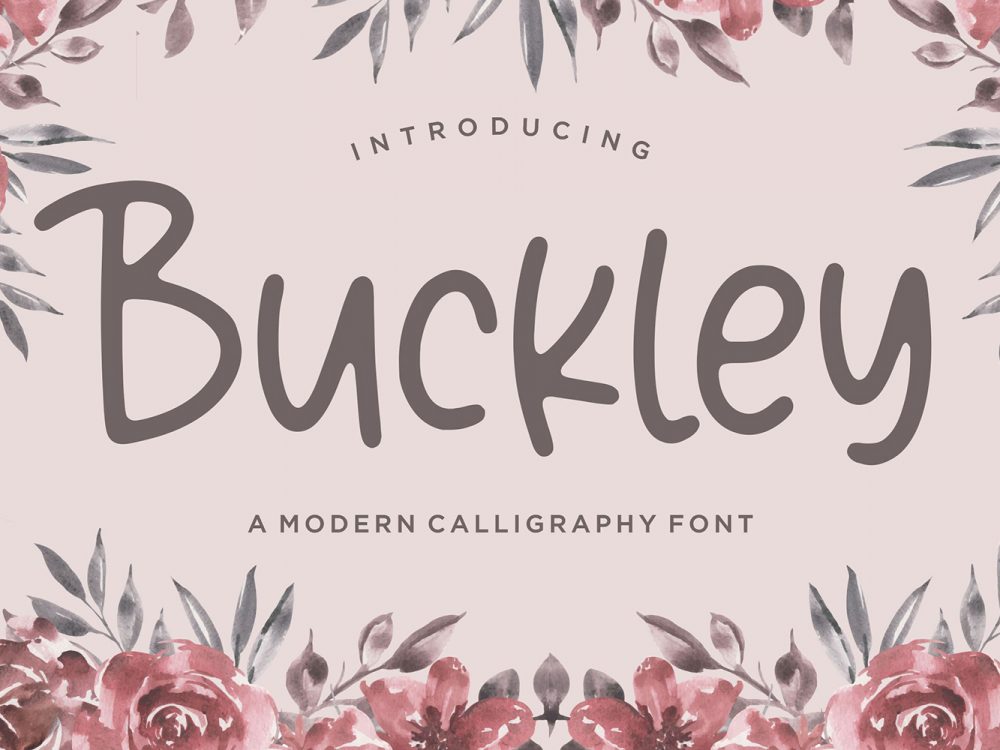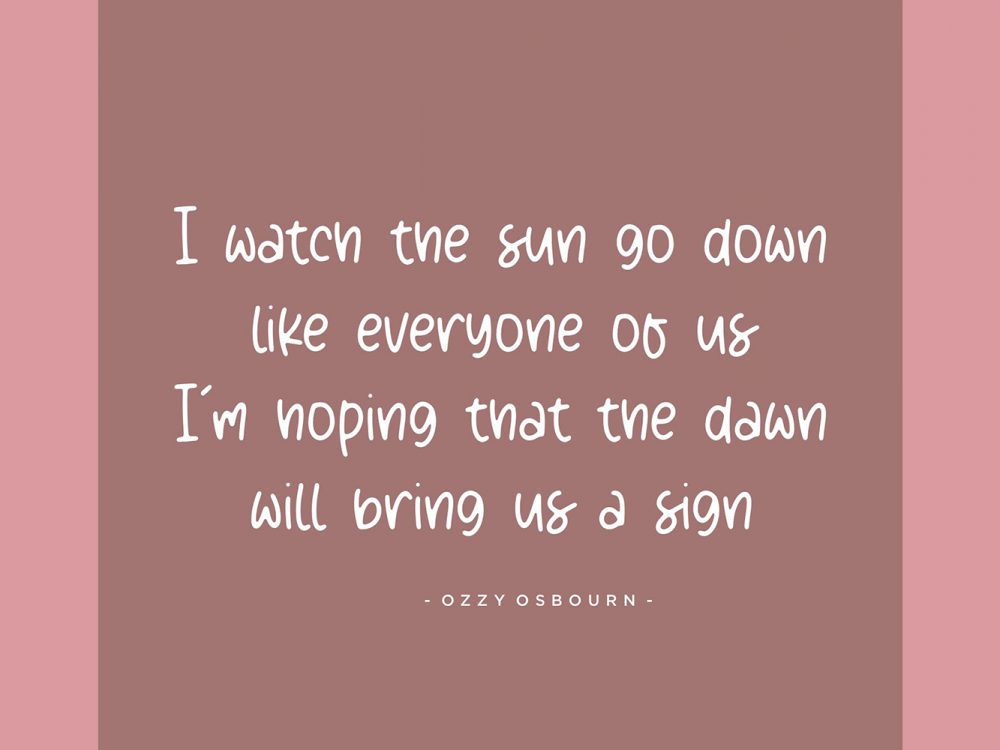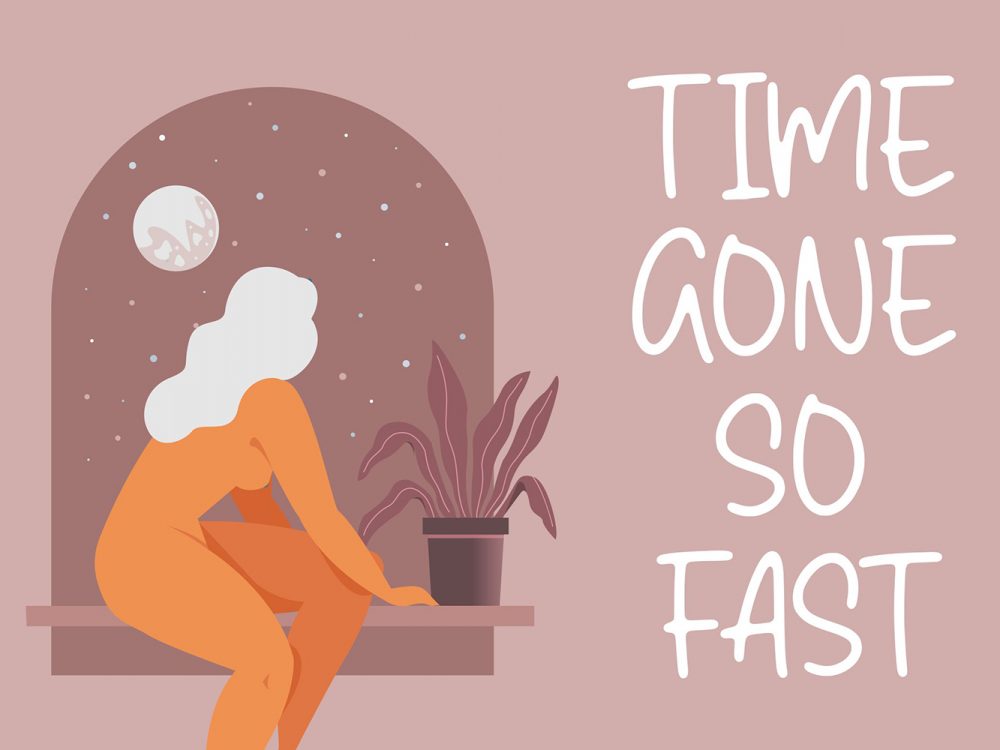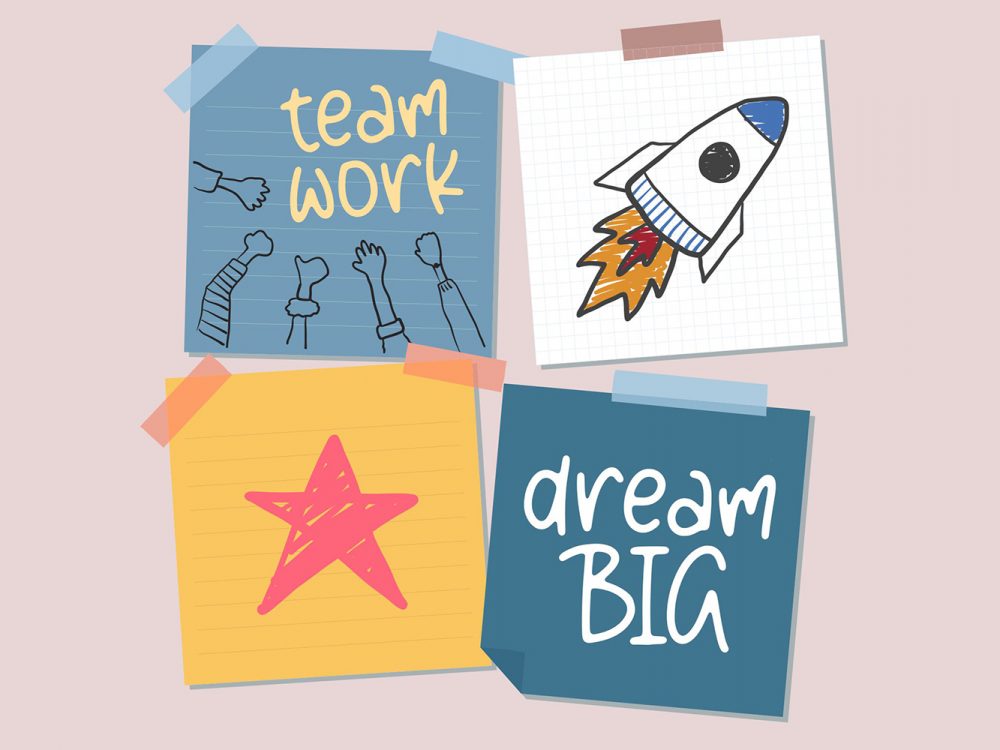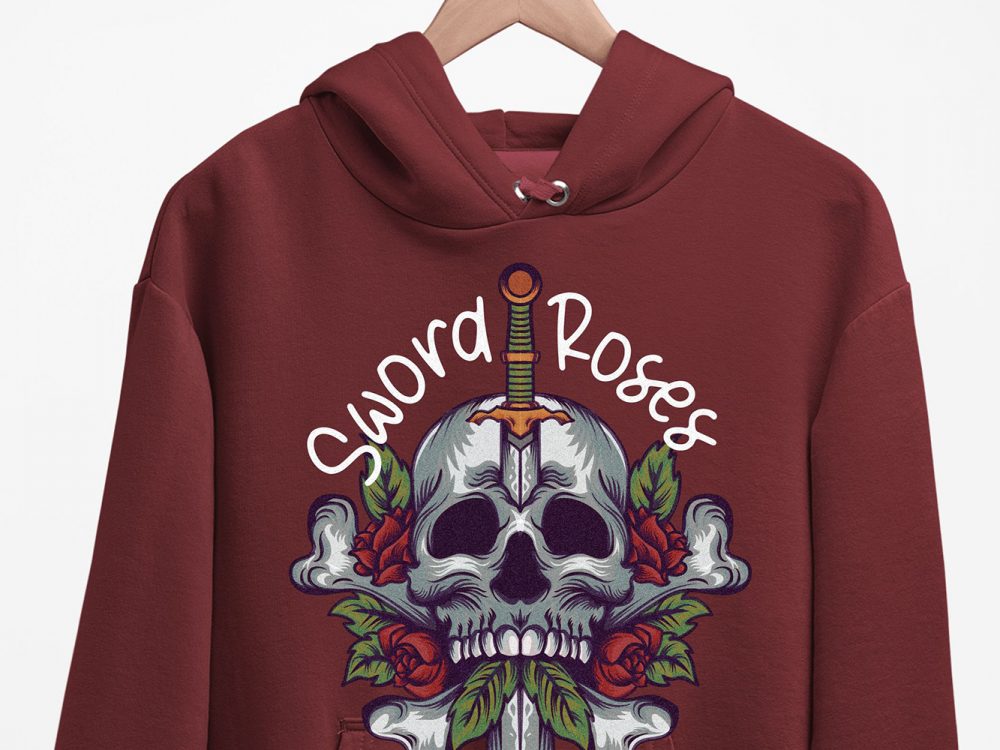
Buckley Modern Free Font
Buckley Modern Free Font is a scripted calligraphic handwritten font with a modern style. This font is well suited for various design projects that require a handwritten script font. You can use this font to create memorable posters, wedding invitations, cards, branding, flyers, and more. Improve the quality and increase the popularity of your design projects by using this font. If you like it don’t forget to check out the full version.